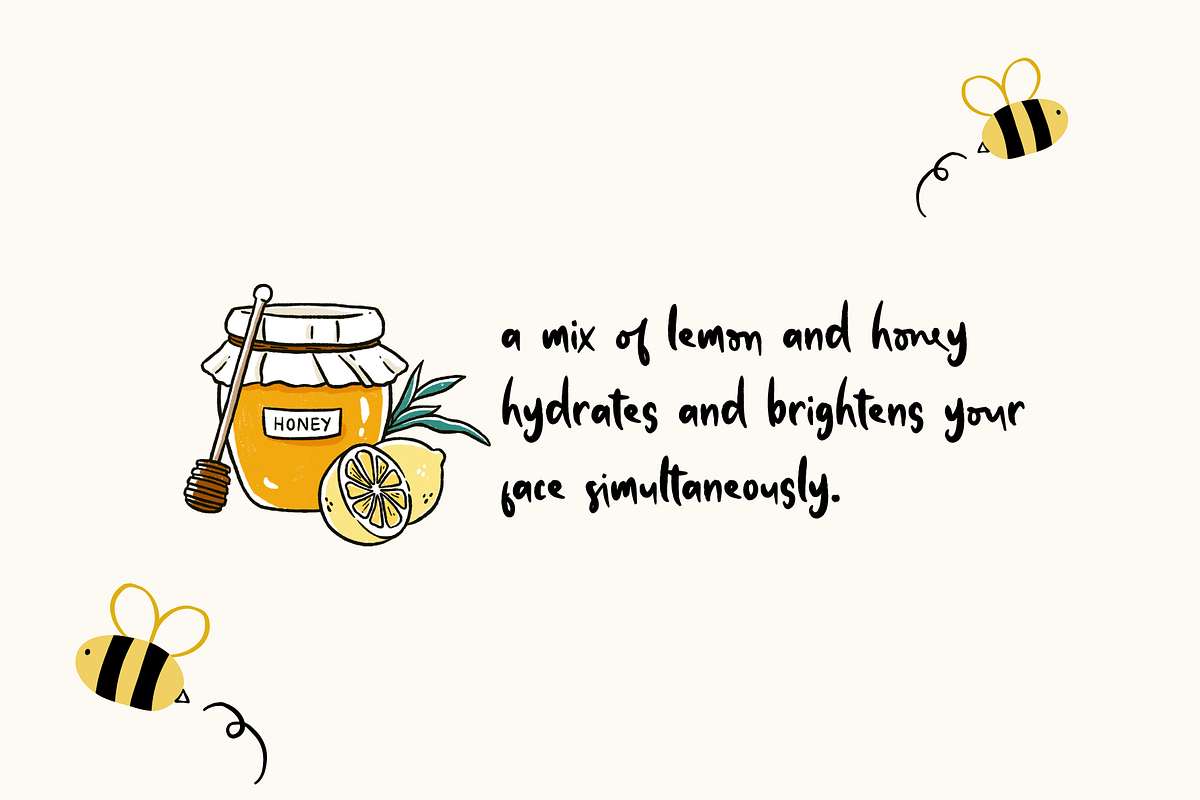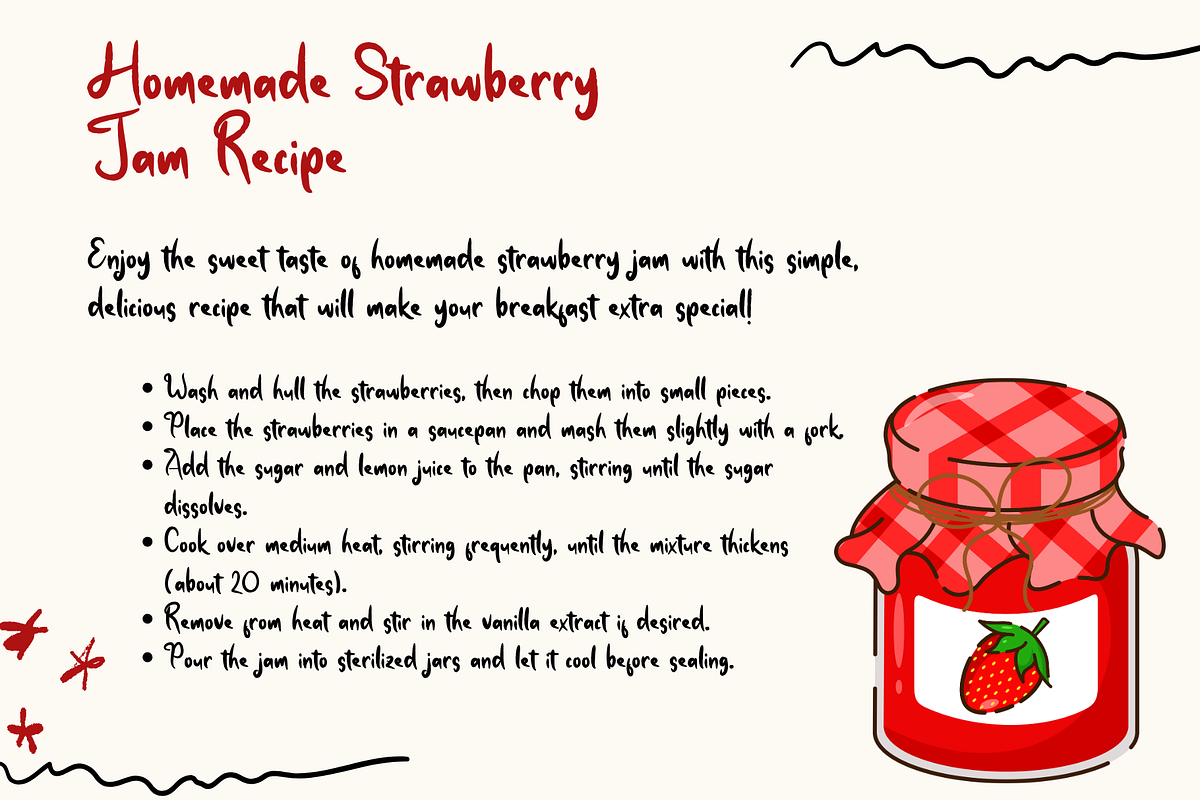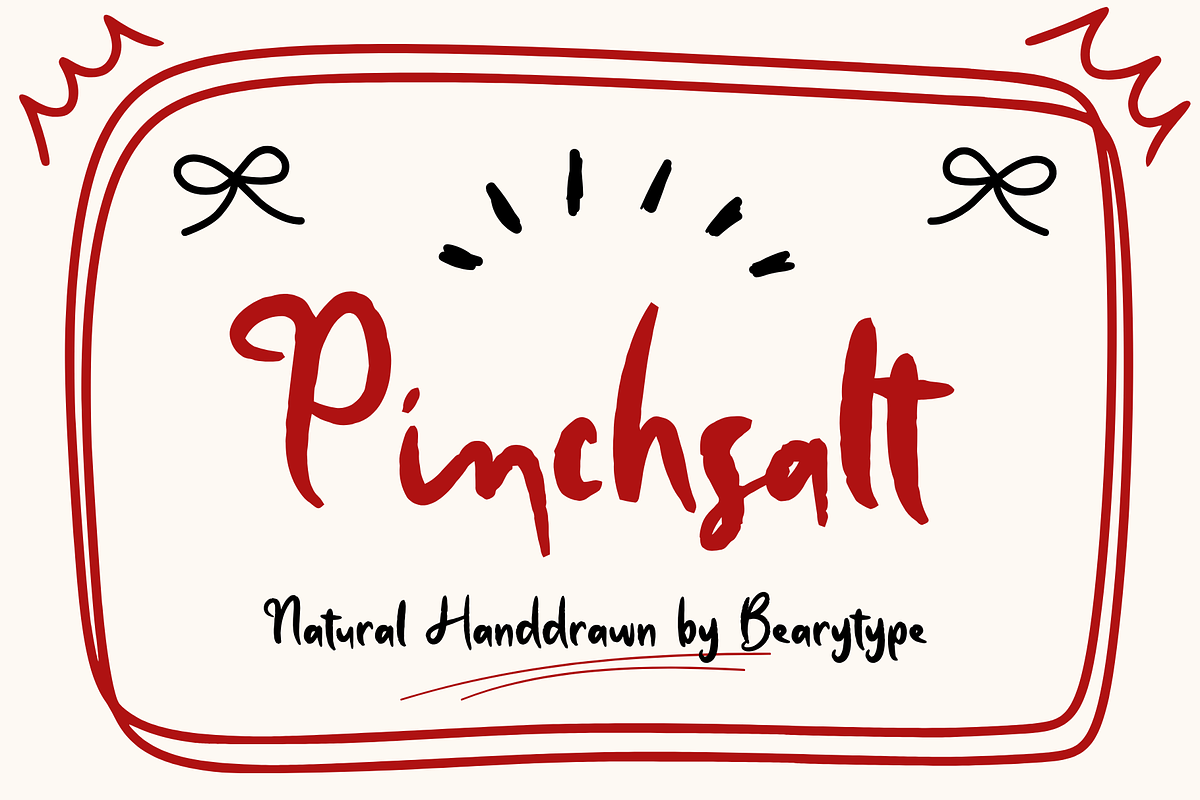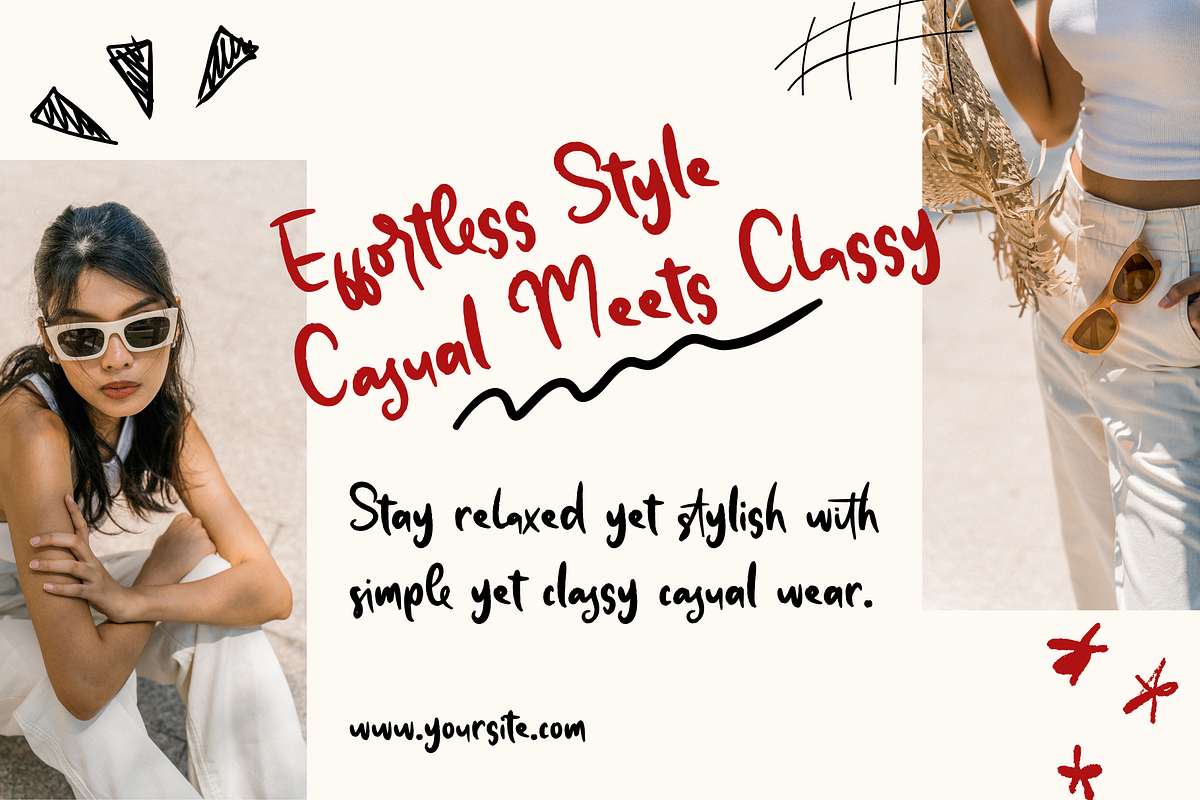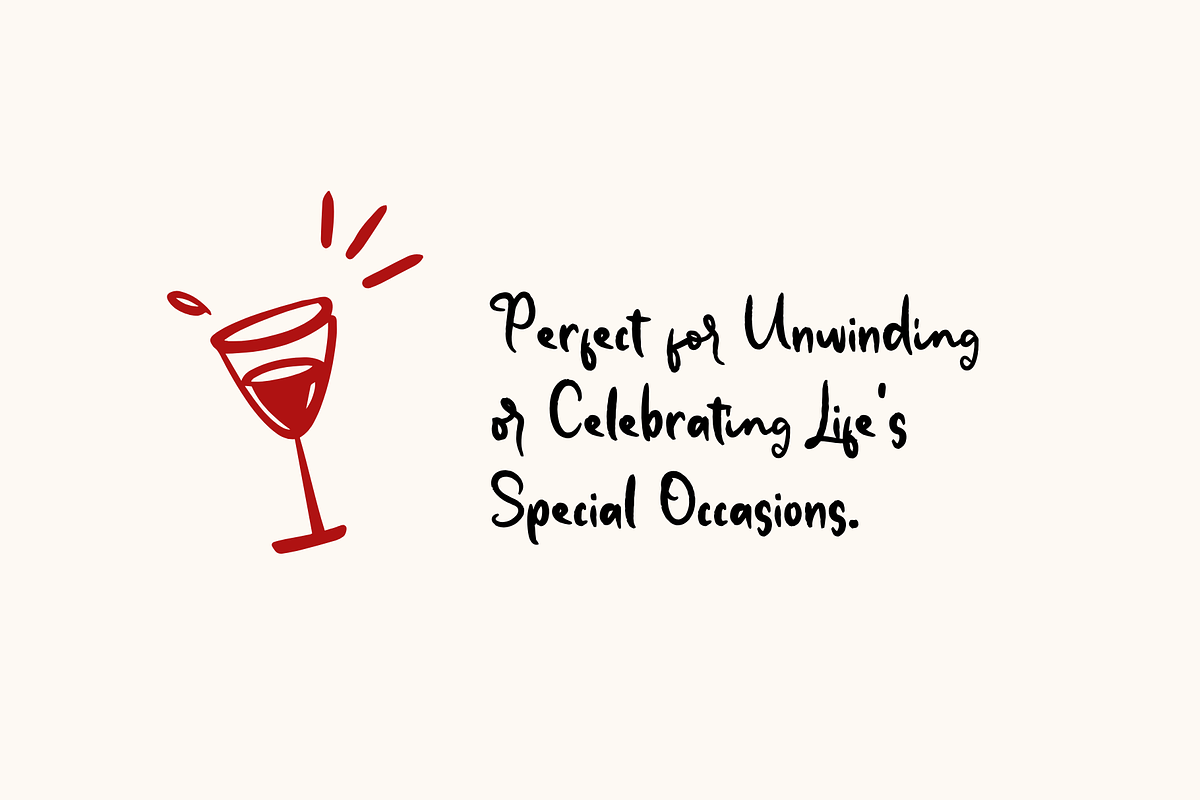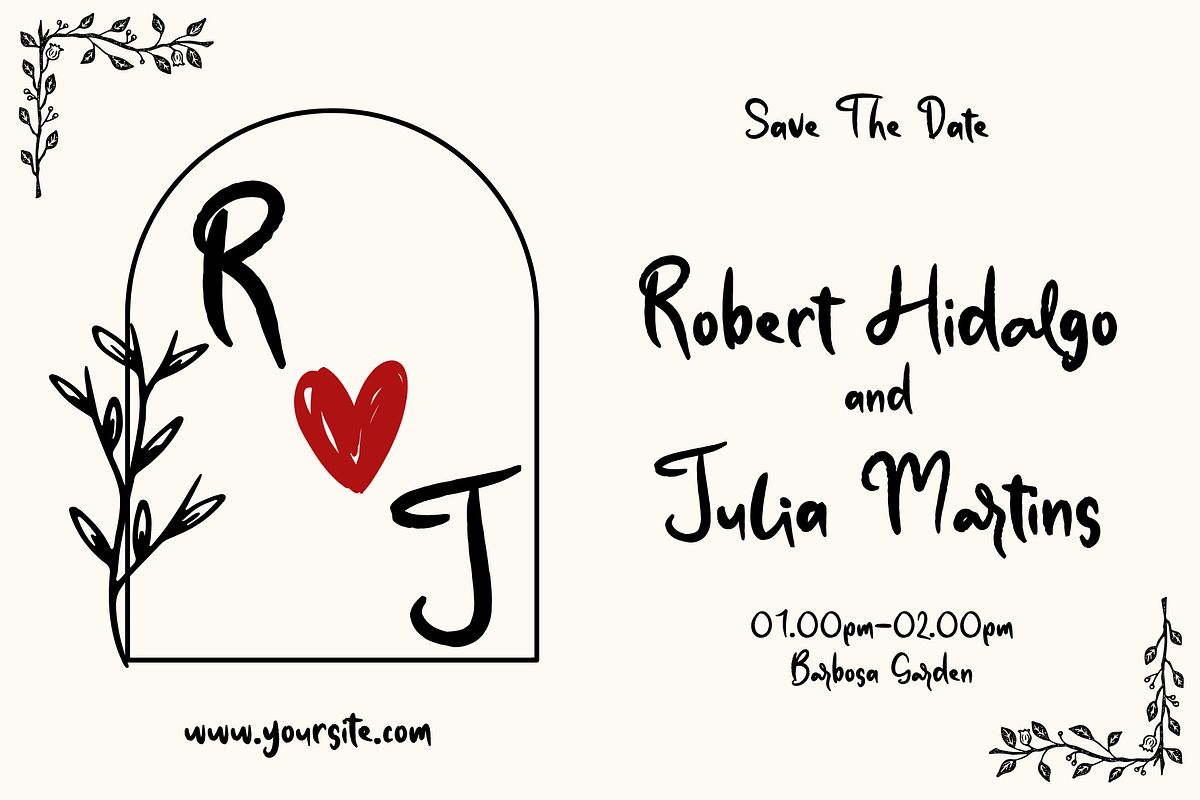
Pinchsalt - handwritten
With Pinchsalt font, you'll get more than just a font. Multi-lingual support, rich ligatures, and 376 glyphs give you unlimited creative freedom. The bold handwritten style with strong strokes presents a natural and authentic feel, perfect for various design projects.